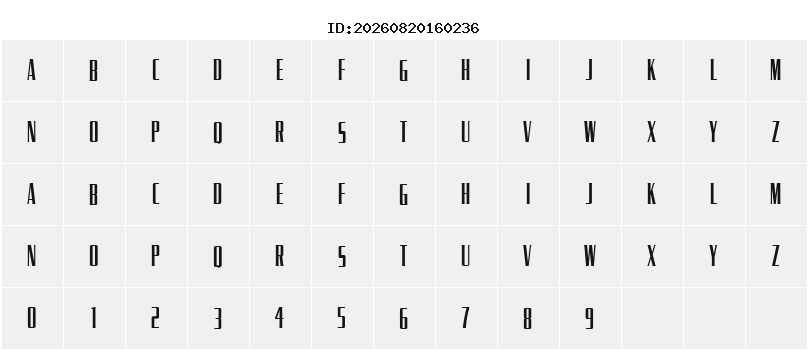
SerpentineComDBol Preview
About SerpentineComDBol.ttf
SerpentineComDBol.ttf is a modern, elegant sans-serif font designed for ultimate readability and visual harmony. Perfect for branding, headlines, web design, and print materials.